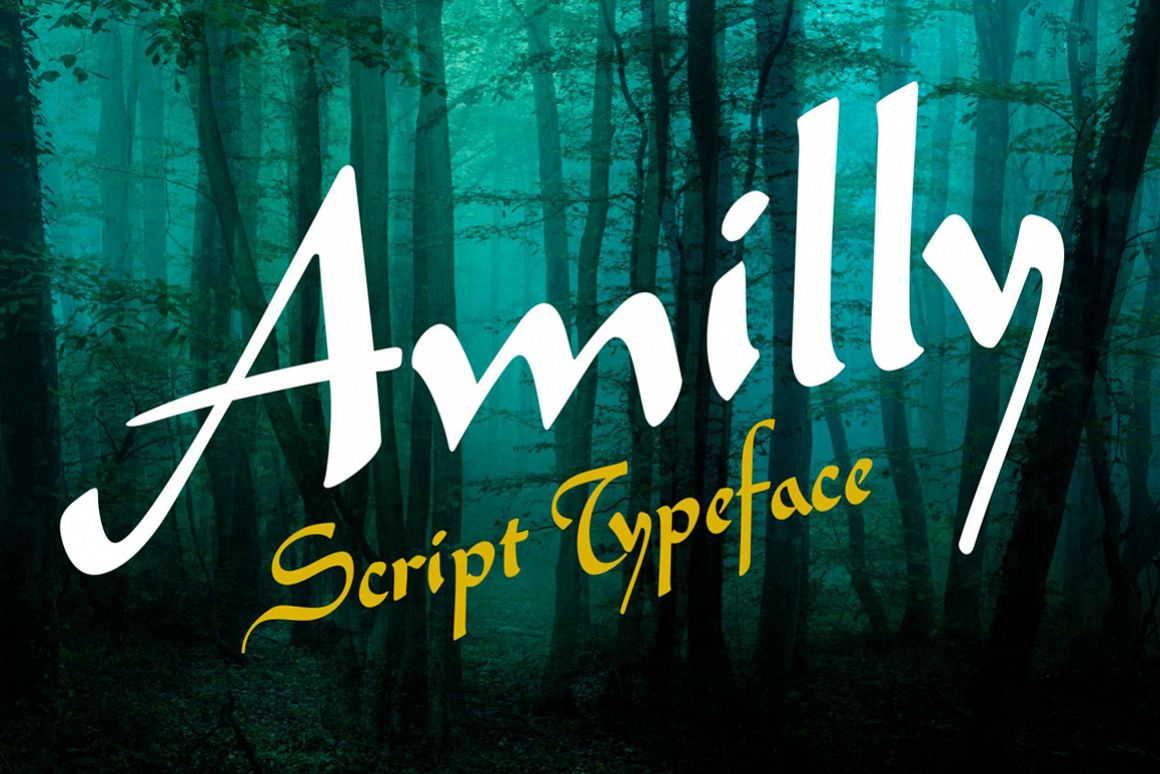
Amilly Script
Amilly
Amilly Script is a script font. Amilly is a retro font that contains extra glyphs and ligatures, you can access them by using the OpenType feature. Very useful for invitations, t-shirts, banners, posters, etc.
Amilly Script comes with upper and lowercase characters and supports international languages. Contextual alternates and Ligatures. OpenType or Glyph panel is needed to have access to all the glyphs.
Amilly Script features:
• Uppercase and lowercase
• Alternates
• International characters
• Punctuation and symbols